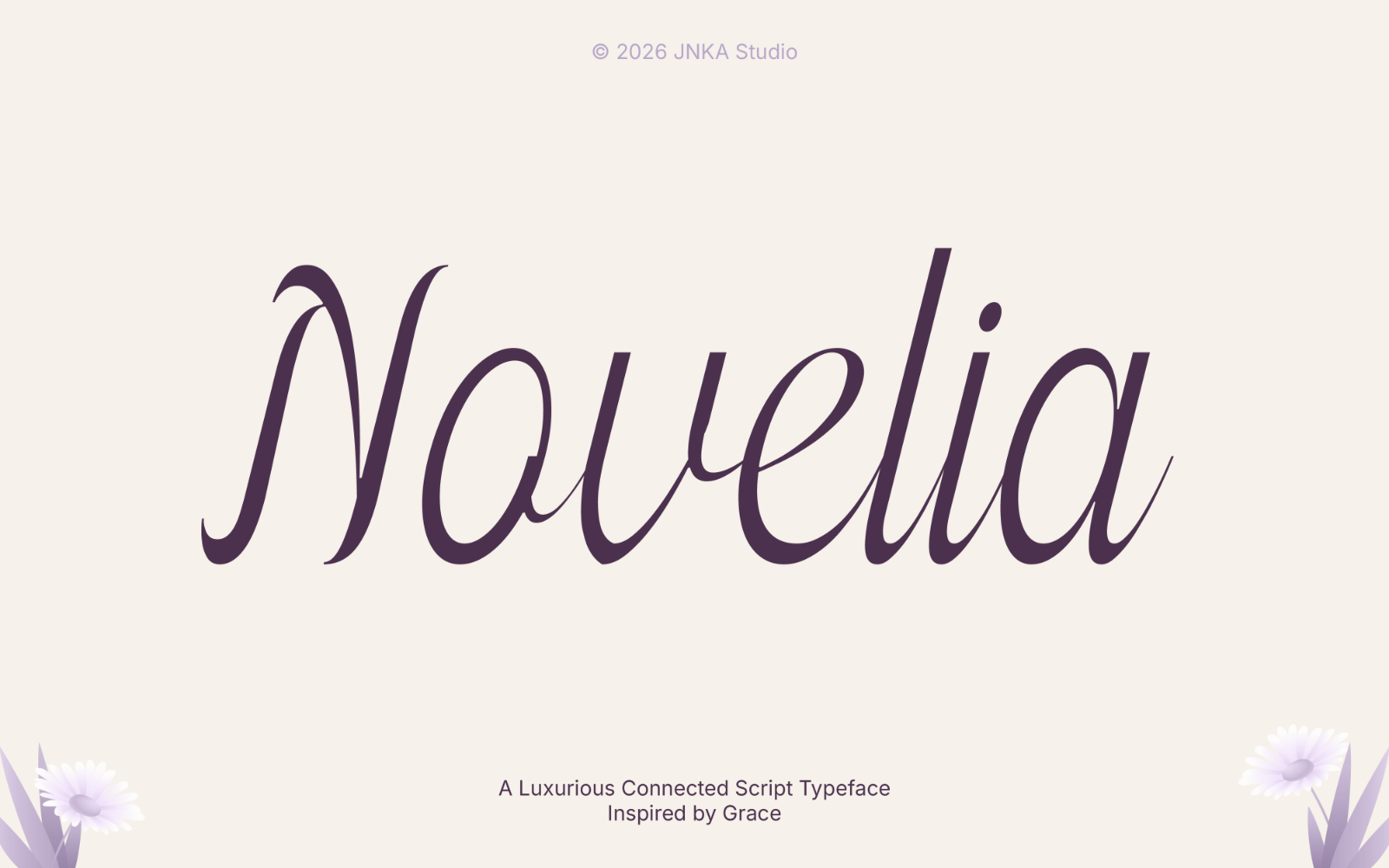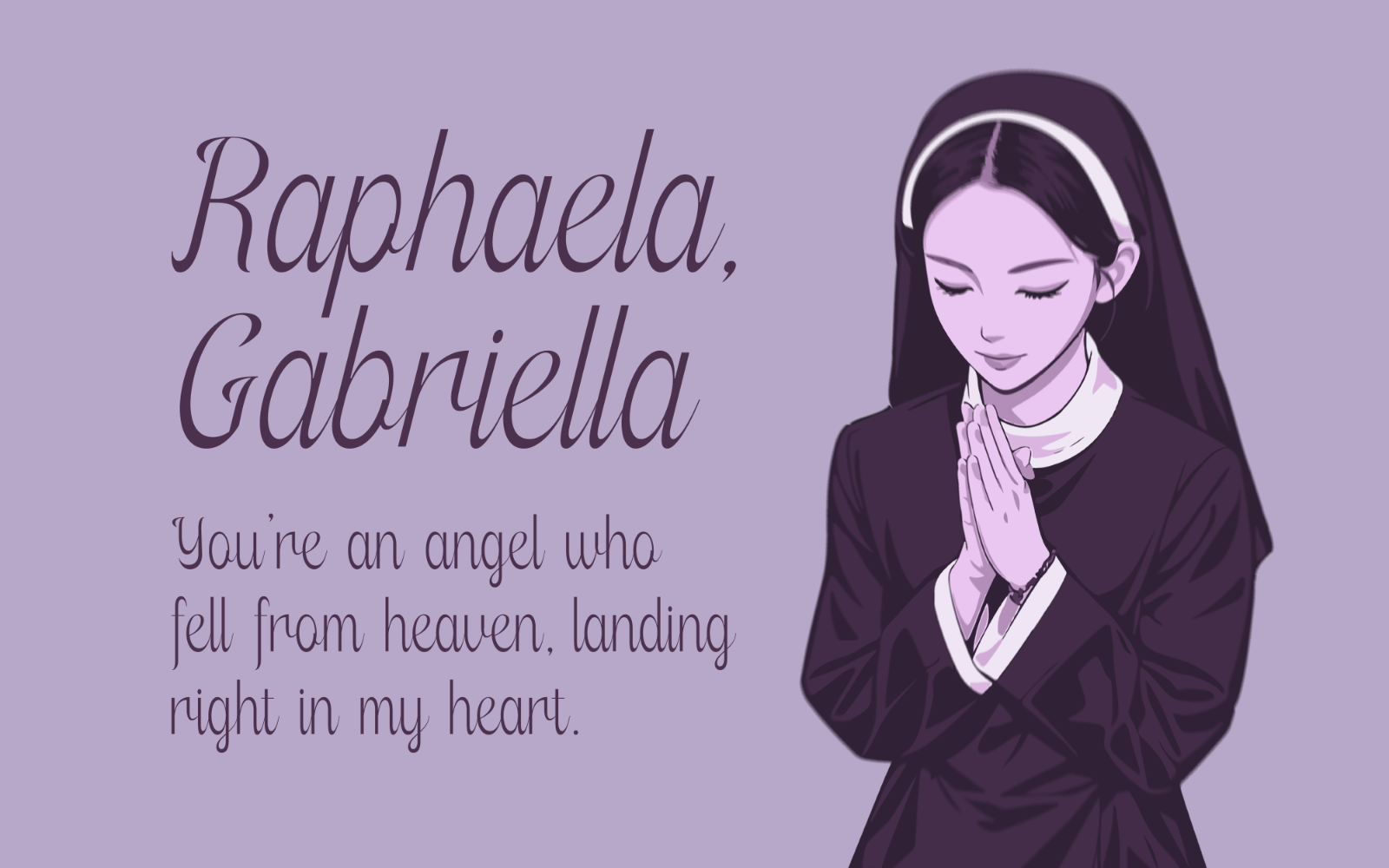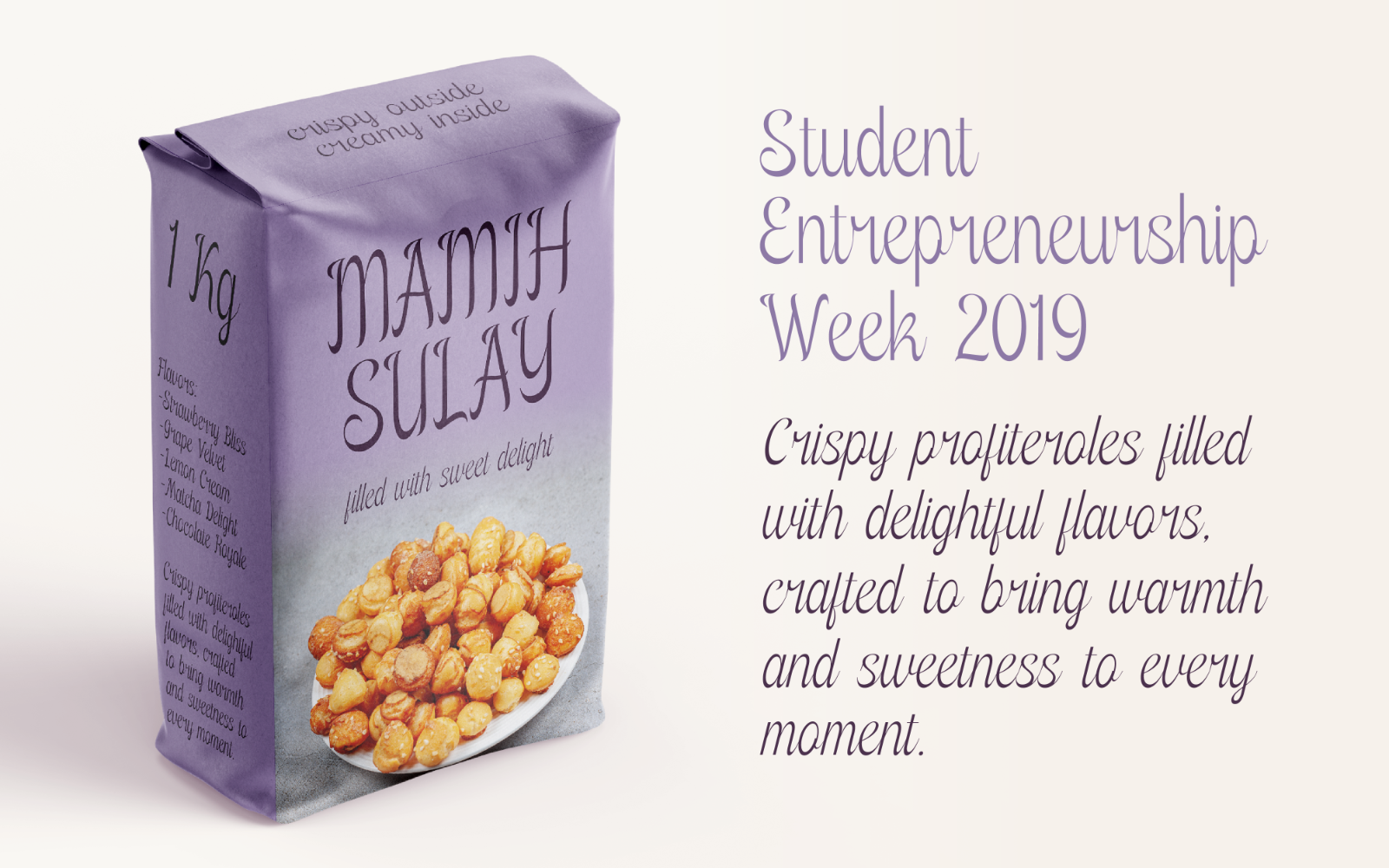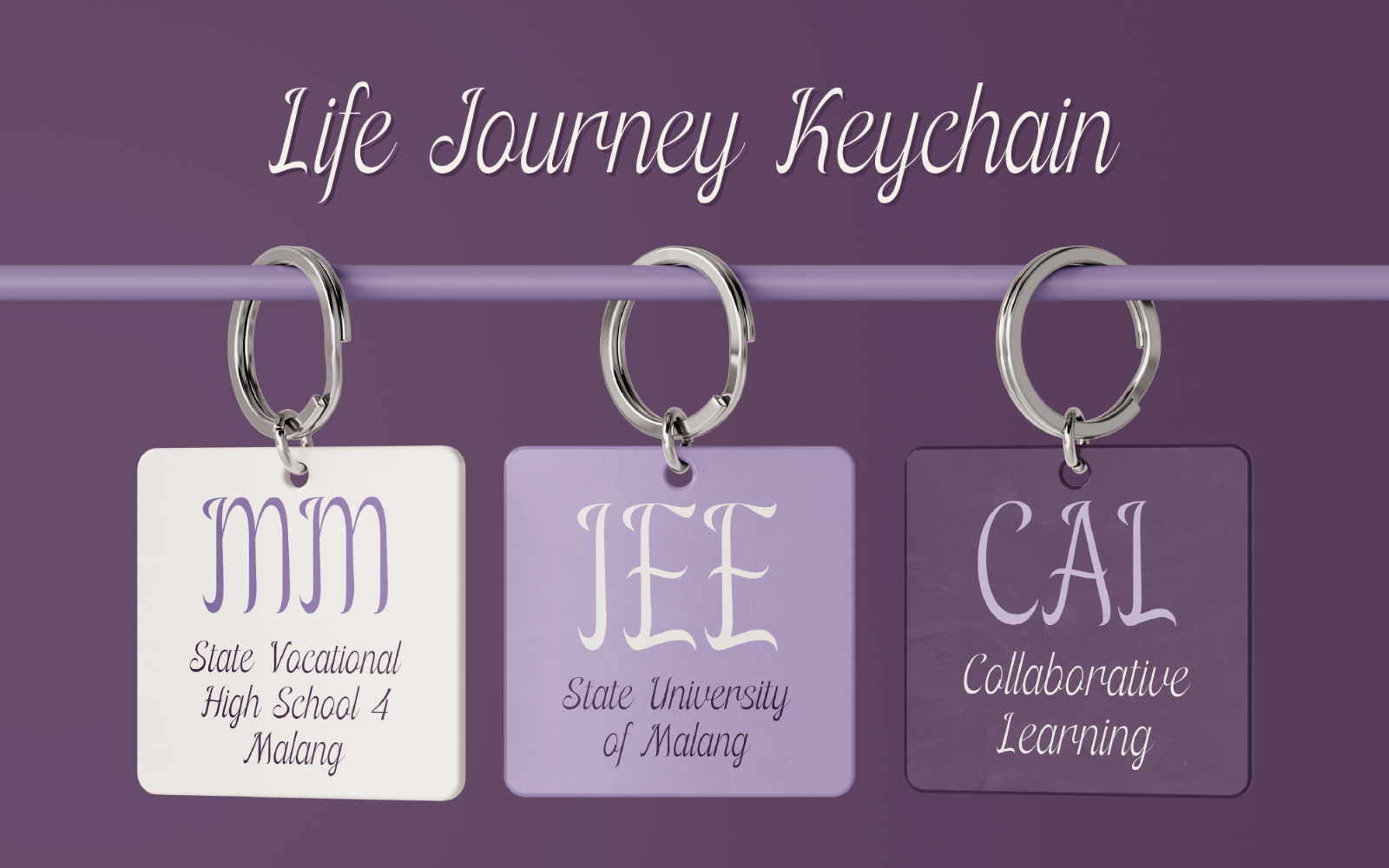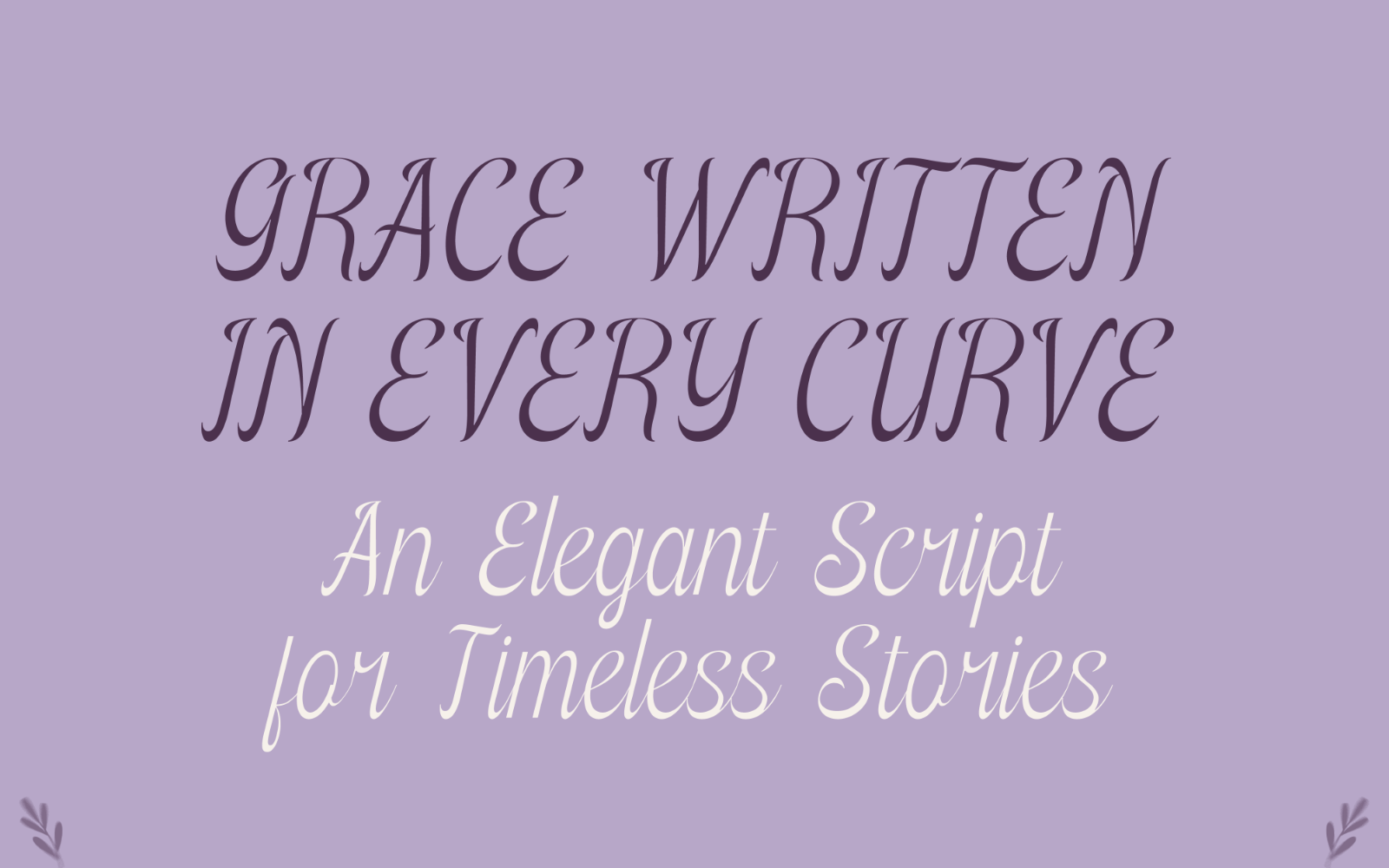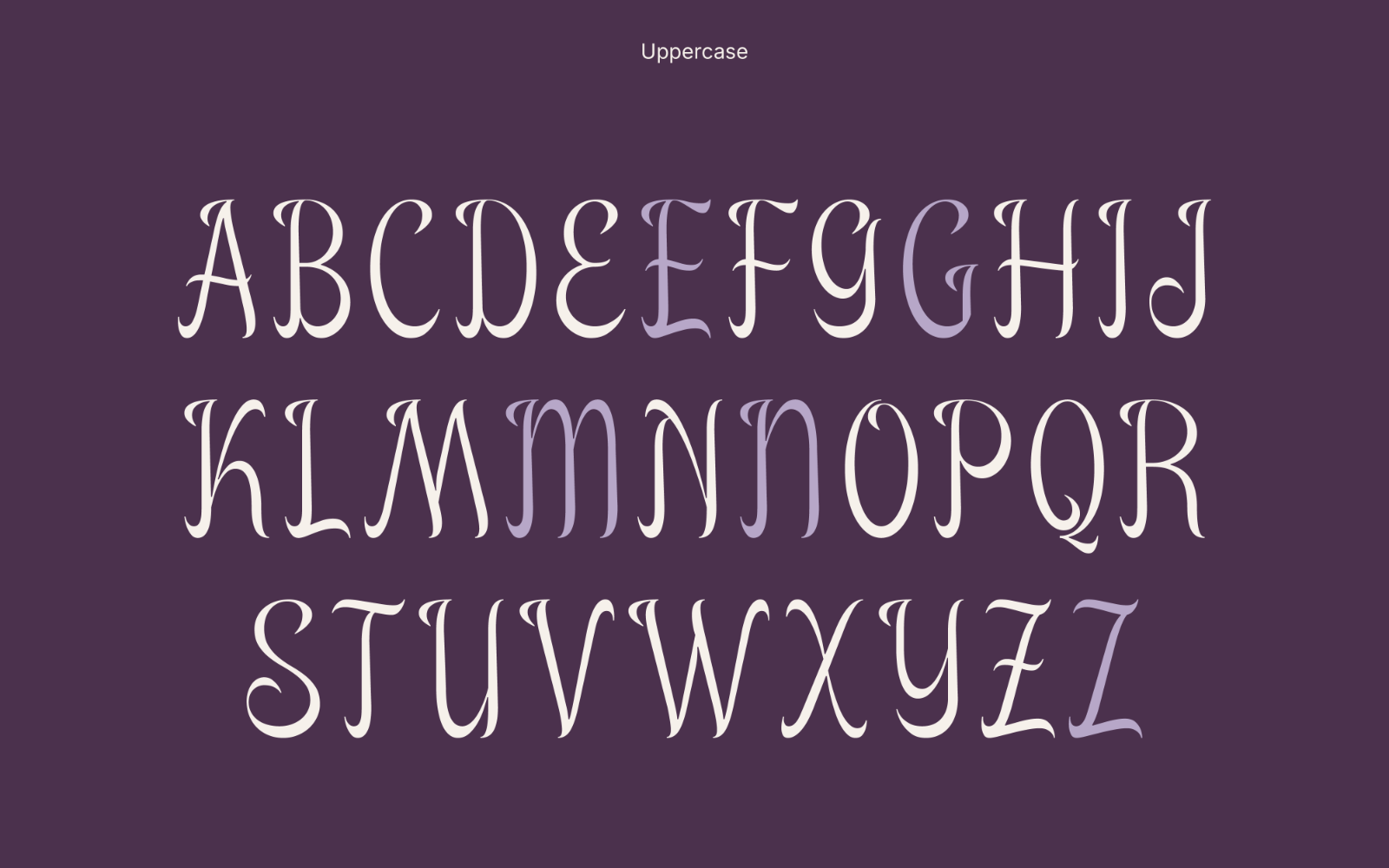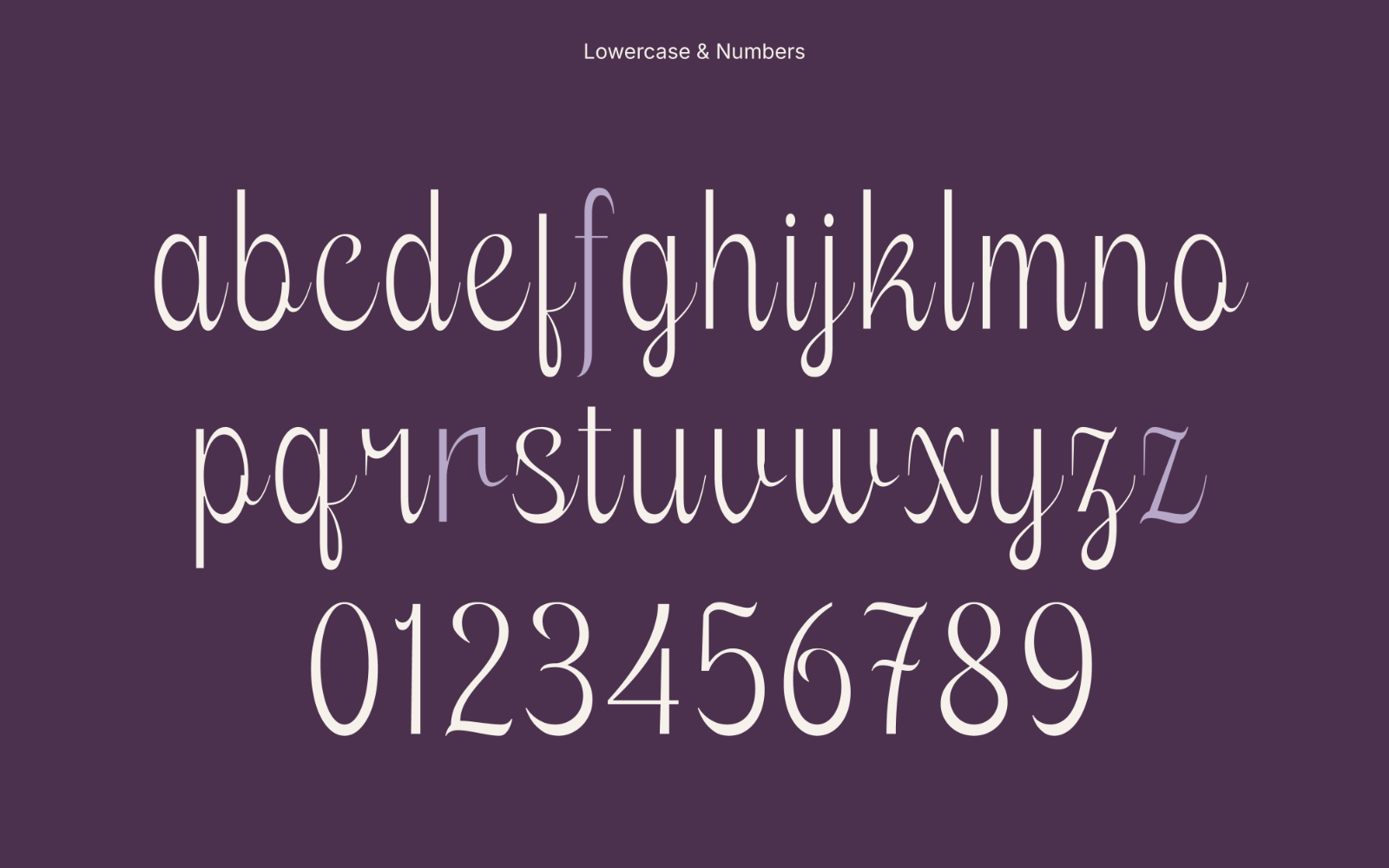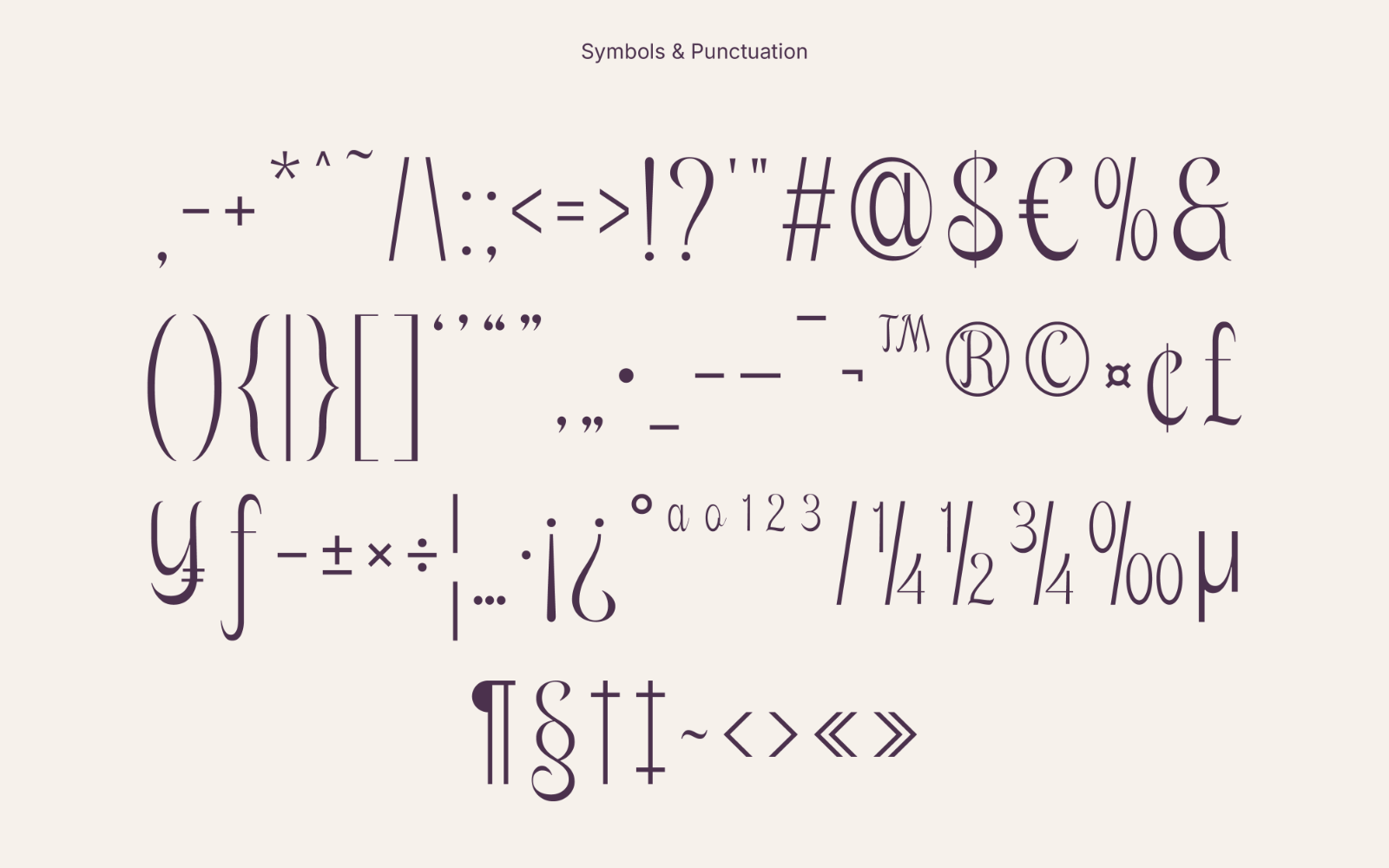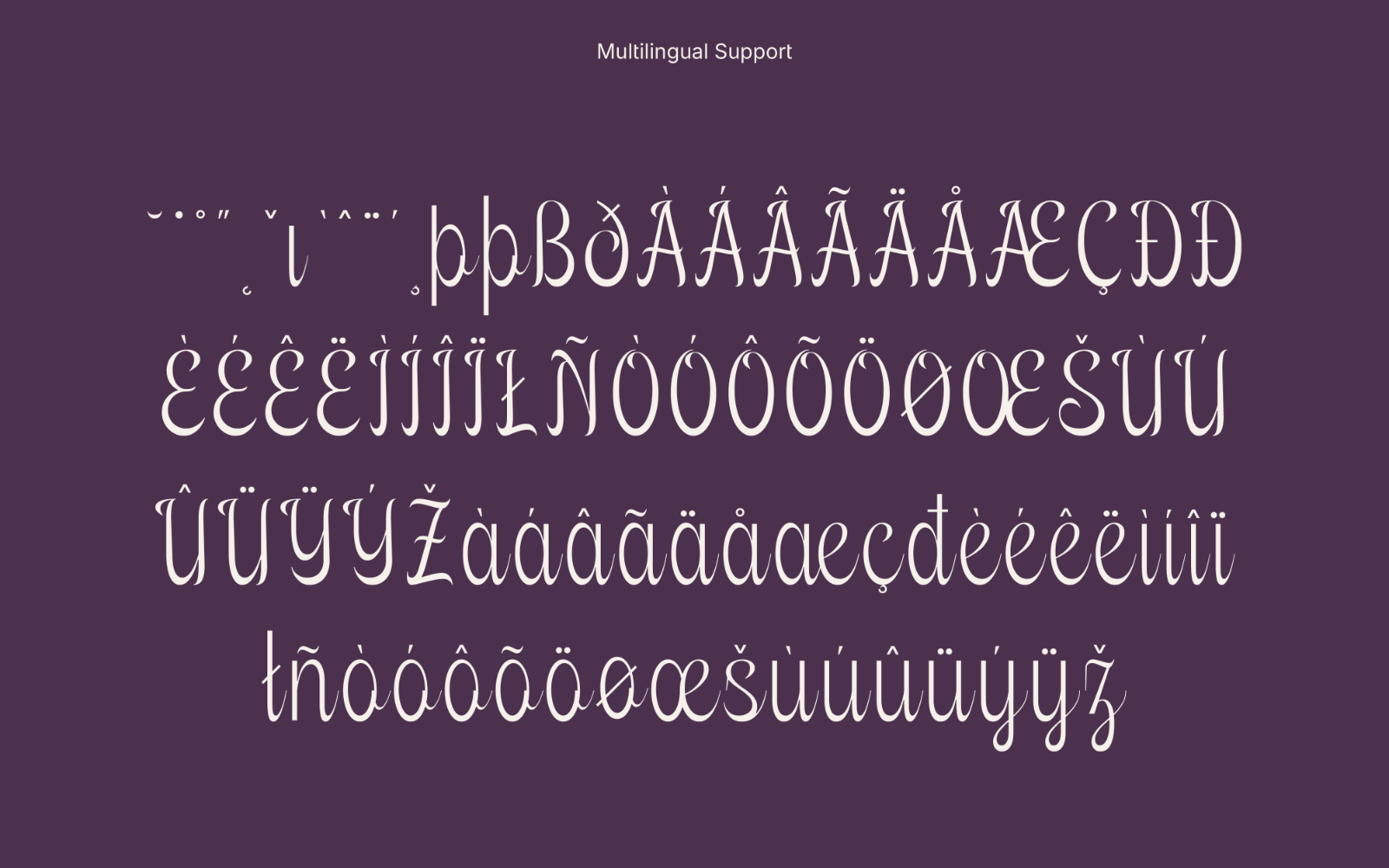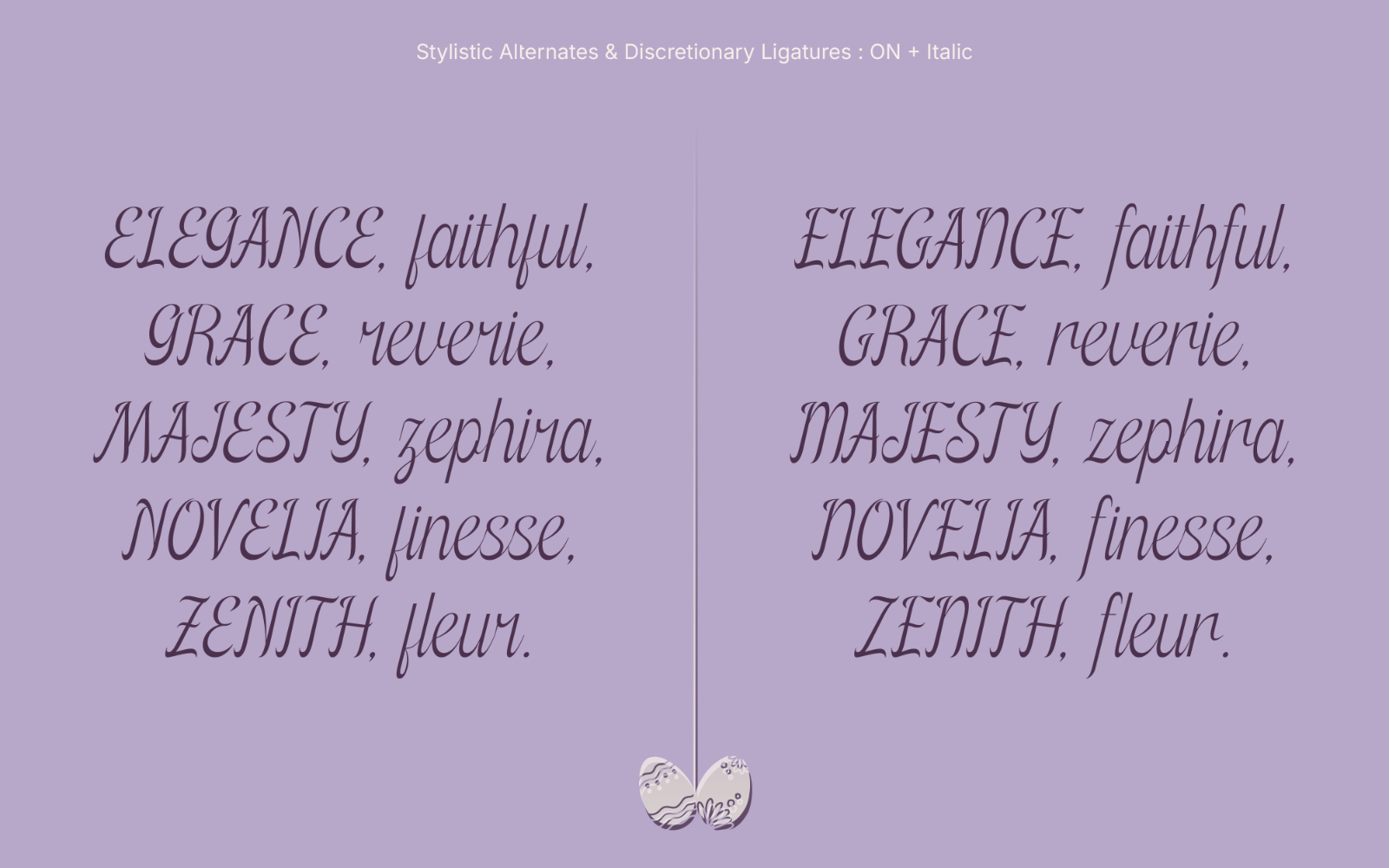
Novelia
Is a luxurious connected script display typeface inspired by elegance, warmth, and the beauty of meaningful connections. Created with flowing letterforms, graceful alternates, and refined ligatures, Novelia blends modern editorial aesthetics with soft calligraphic expression. This typeface was specially designed as a seasonal project inspired by Good Friday and Easter, carrying a subtle sense of grace, renewal, and gentle femininity. Perfect for branding, fashion editorials, wedding designs, packaging, and sophisticated visual identities.
Font Features:
• Regular & Italic Styles
• Uppercase & Lowercase Letters
• Numbers & Standard Punctuation
• Symbols & Special Characters
• Basic Multilingual Support (Latin-based)
• Stylistic Alternates
• Standard & Decorative Ligatures
• Carefully Adjusted Kerning
• Approx. 240 Glyphs
• OpenType Features